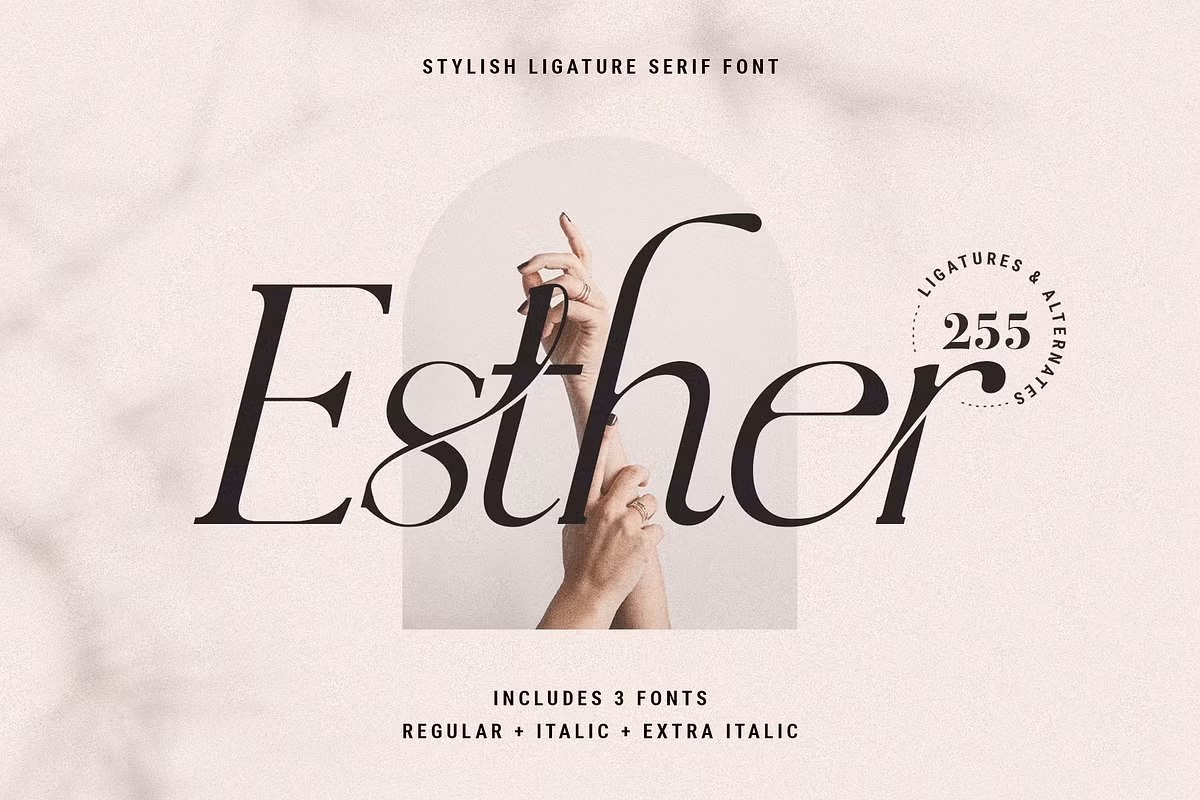
Esther – Ligature Serif Font Family Free Download is a graceful and modern serif typeface family that features elegant ligatures, high contrast strokes, and a refined, editorial look. Designed for premium branding, fashion layouts, wedding designs, packaging, and magazine headlines, Esther brings a luxurious, high-end feel to any project.
With a full range of weights and stylish ligature options, Esther Free Download offers exceptional flexibility and sophistication. The font family supports multilingual characters and performs beautifully in both print and digital formats, perfect for designers seeking timeless elegance with a fresh twist.